Constituent of Kanji and Creation Points 03: “Horizontal Division System”
Today, I would like to introduce points on creating a kanji that consists of the top and bottom division as the horizontal division system. The part on the top of kanji is called “kanmuri (crown),” and the part on the bottom of kanji is called “ashi (feet).”
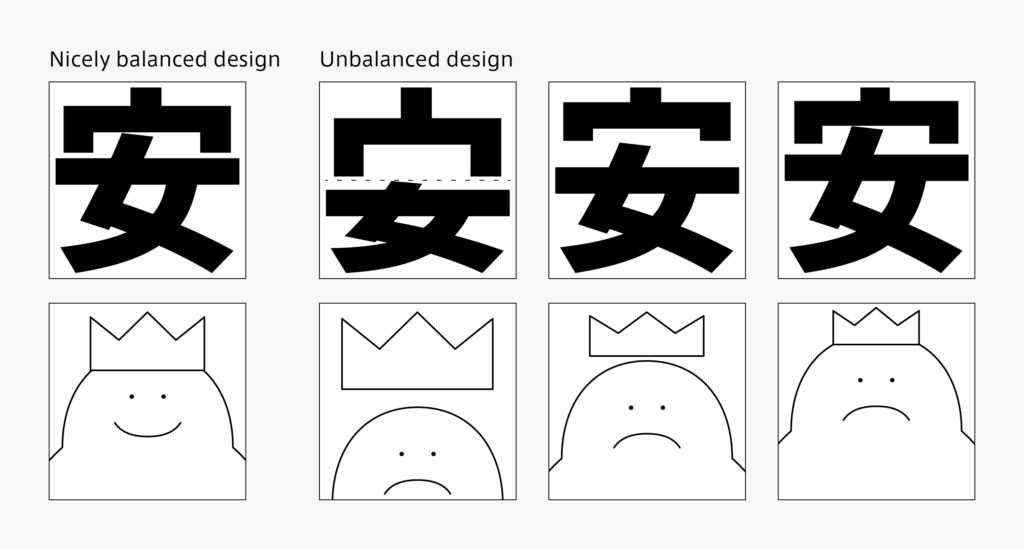
“Kanmuri” is not just aligned onto the top of the bottom part. In some cases, it is used in the images to cover or put something in, etc. For example, the kanji “安” is created with the head of “女,” intruding into the inside space of “宀.” For appearance, adjustment is made so that kanmuri does not lose to the inside element. The number of horizontal strokes tends to be large in the horizontal division system. For typefaces with thick horizontal strokes, such as in sans-serif typefaces, I try to stay aware of the principle: “gradually thicken the horizontal stroke from the top to the bottom for kanji creation.” In the case of Mincho typeface, the horizontal strokes may be created with even thickness. Also, characters with concern for a symmetrical balance, such as “吉, 責, and 菫,” are somewhat larger in this group, compared to different groups.